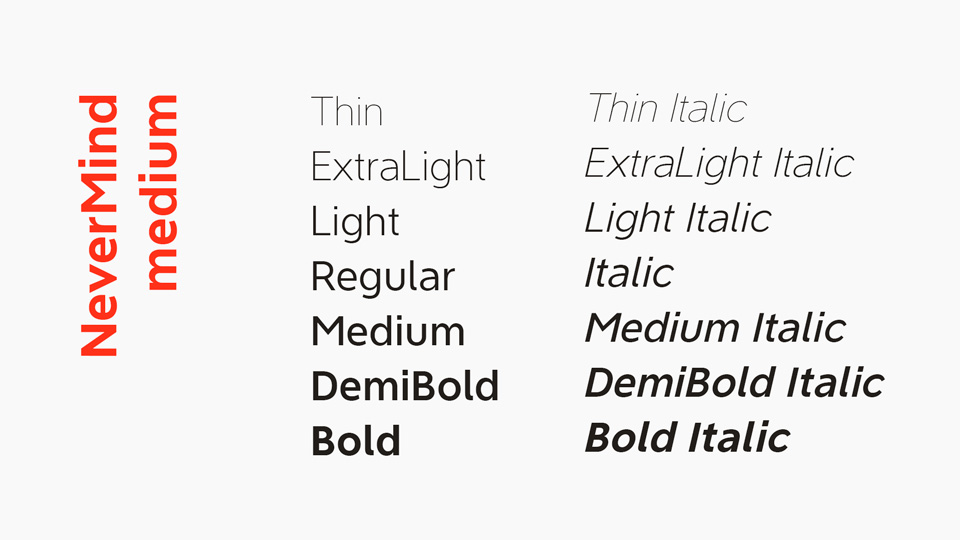
NeverMind Typeface
NeverMind, is a font family based on the logotype used and designed by XMind. It is geometric and humanist sans serif font, modern and friendly, and can be used for all types of communication.
The NeverMind font family consists of 28 different font weights with stroker thickness from Thin 100 to Bold 700 and two different widths (Condensed 90 and Medium 100).